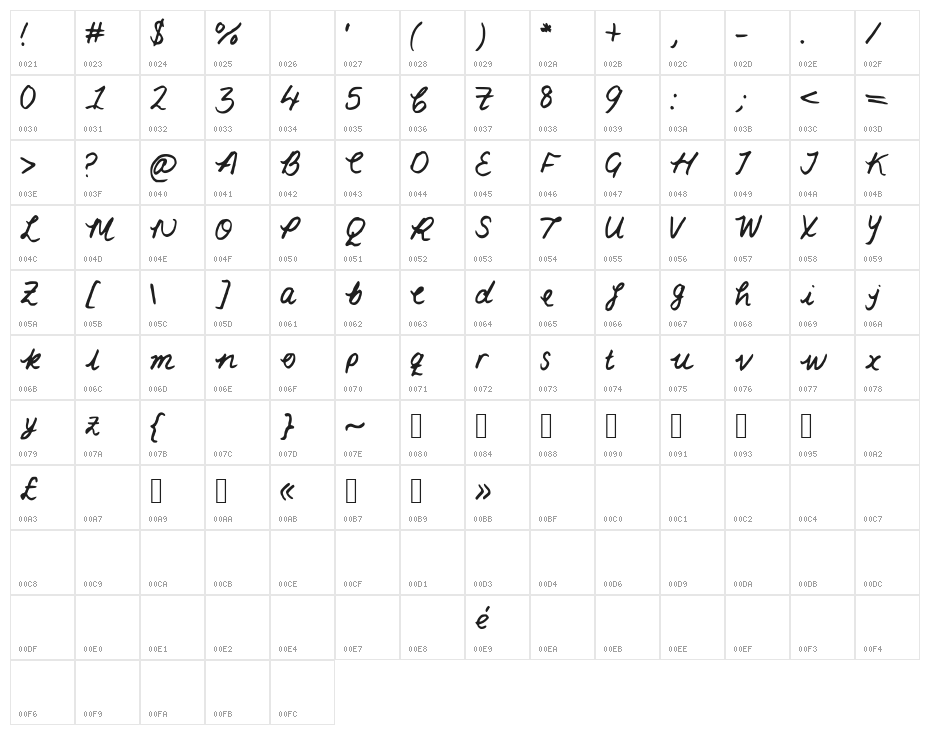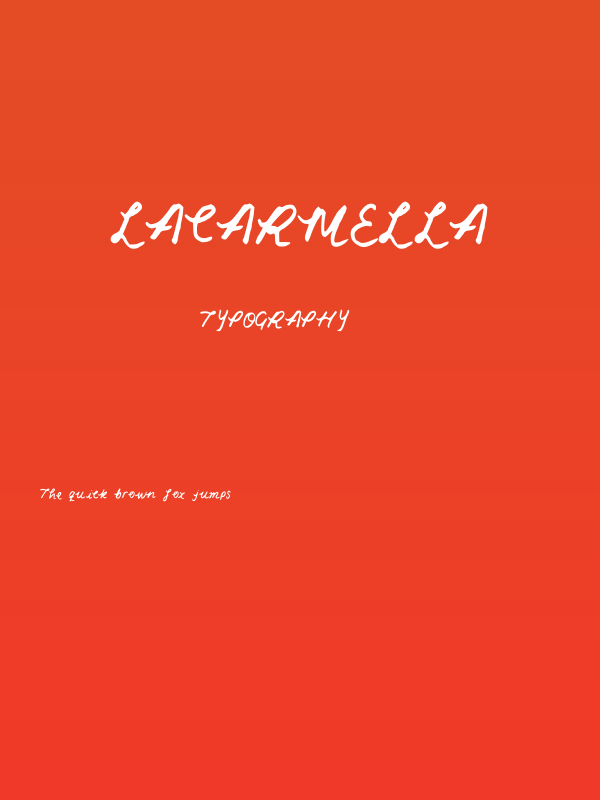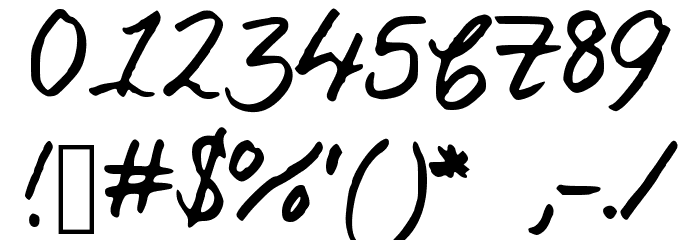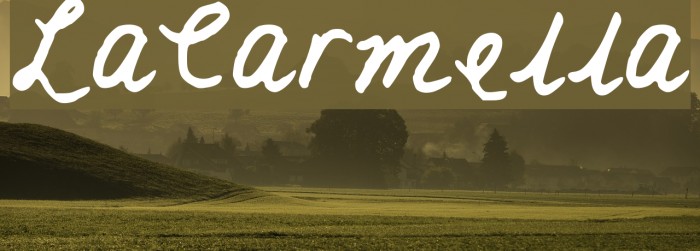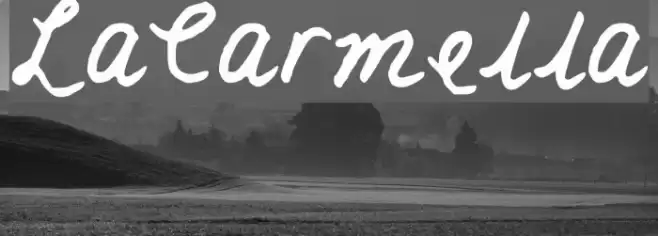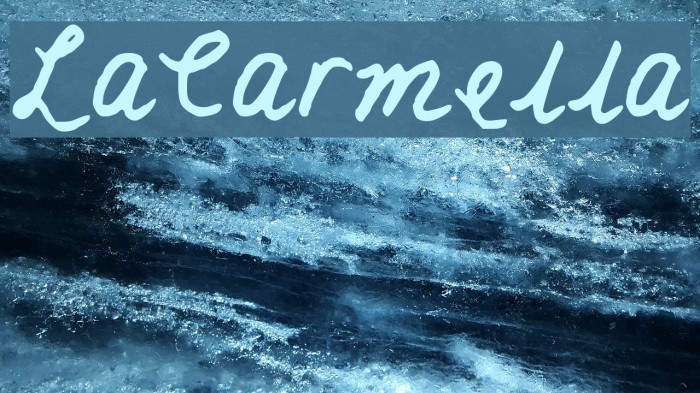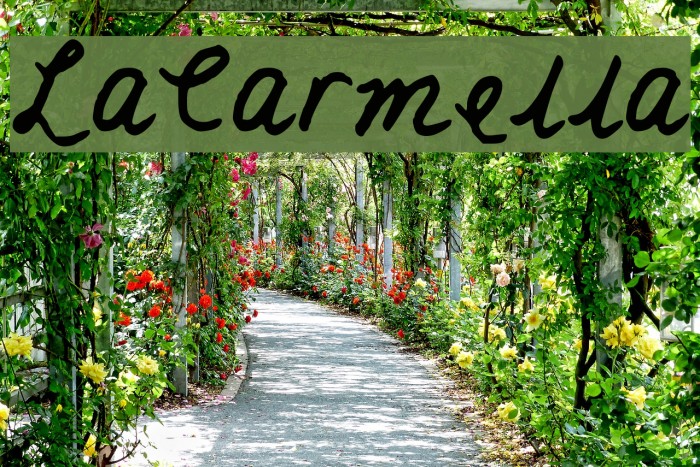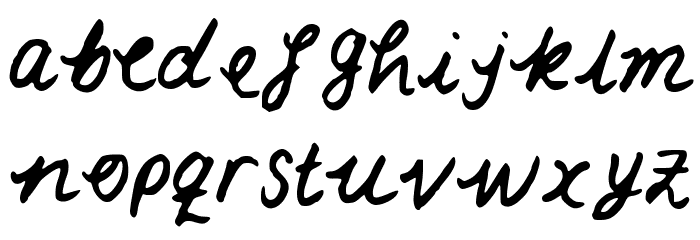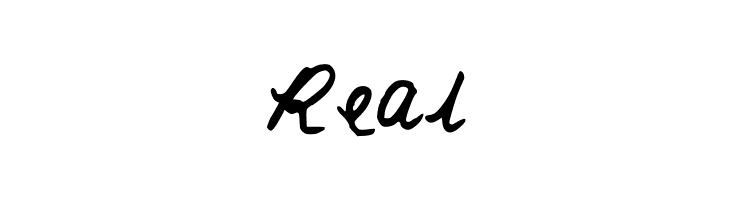
LaCarmella Font
LaCarmella Description
This font features a flowing, cursive style that mimics elegant handwriting. The characters are connected, giving it a seamless and fluid appearance. The strokes are smooth and slightly varied in thickness, adding a touch of sophistication and dynamism. The uppercase letters are bold and prominent, while the lowercase letters maintain a consistent flow, enhancing readability. Numbers and special characters are crafted with the same attention to detail, ensuring a cohesive look throughout. This font exudes a sense of grace and personal touch, making it ideal for projects that require a personal or artistic flair.
| Proposed Projects | Ideal for wedding invitations, greeting cards, personal branding, and artistic projects. |